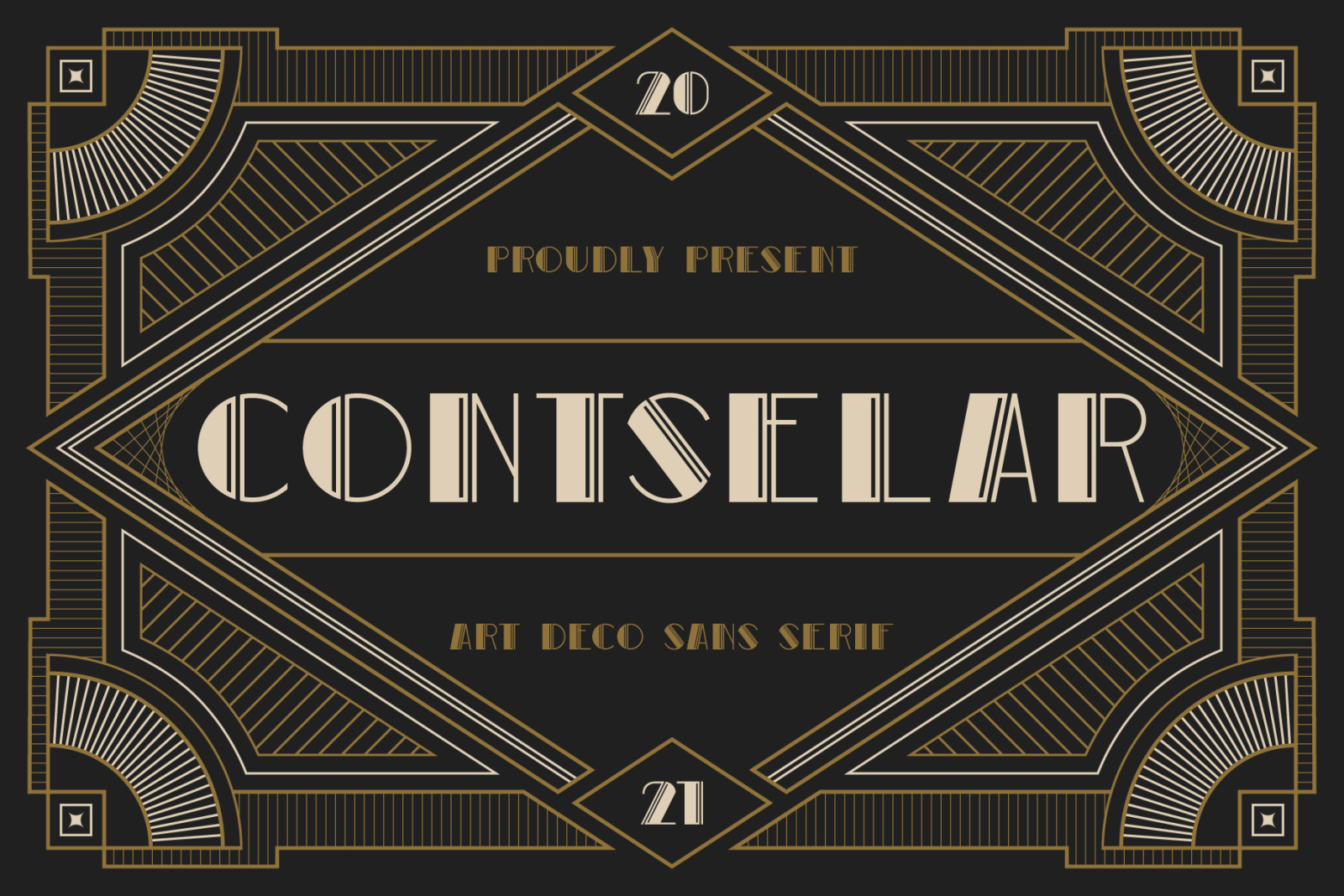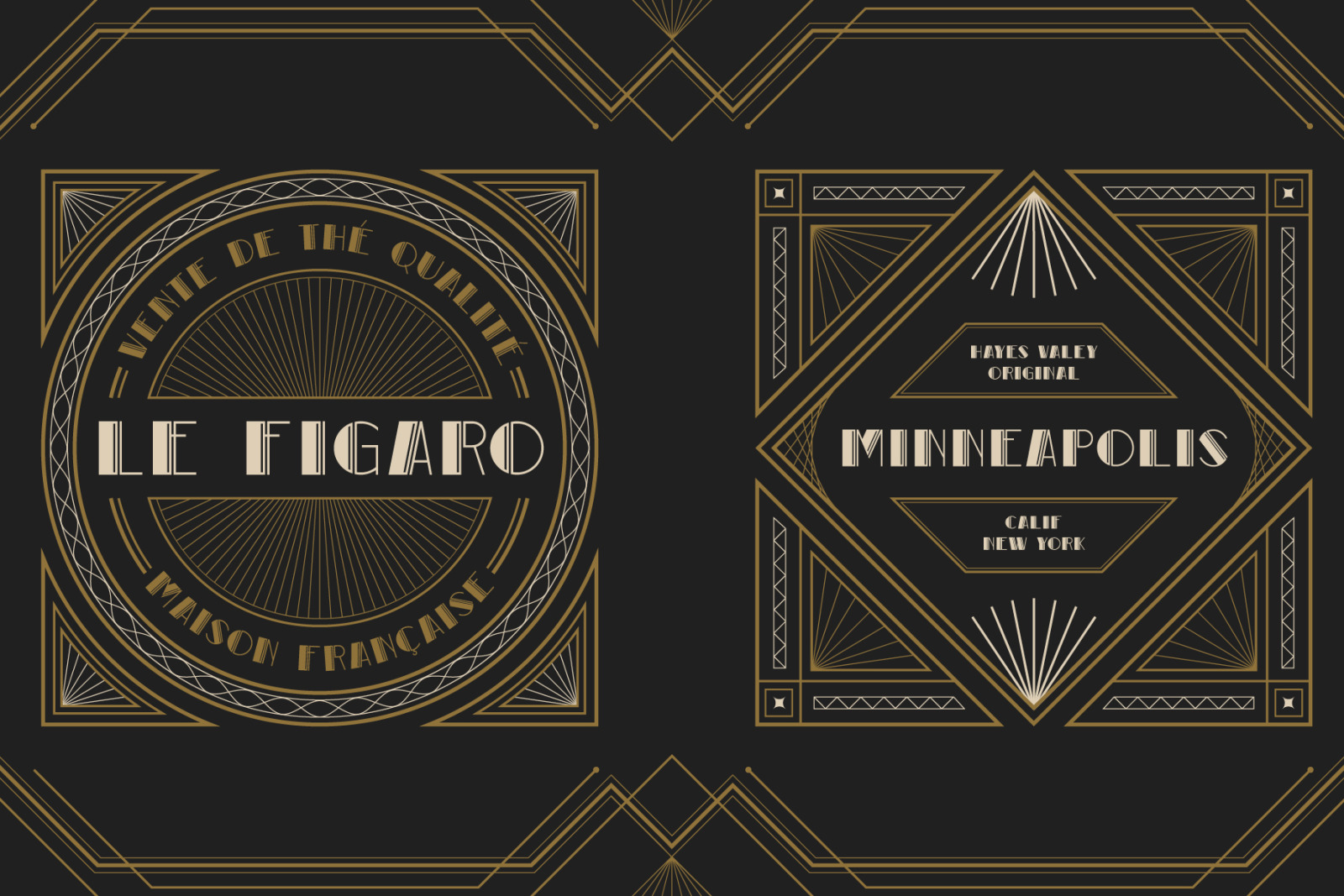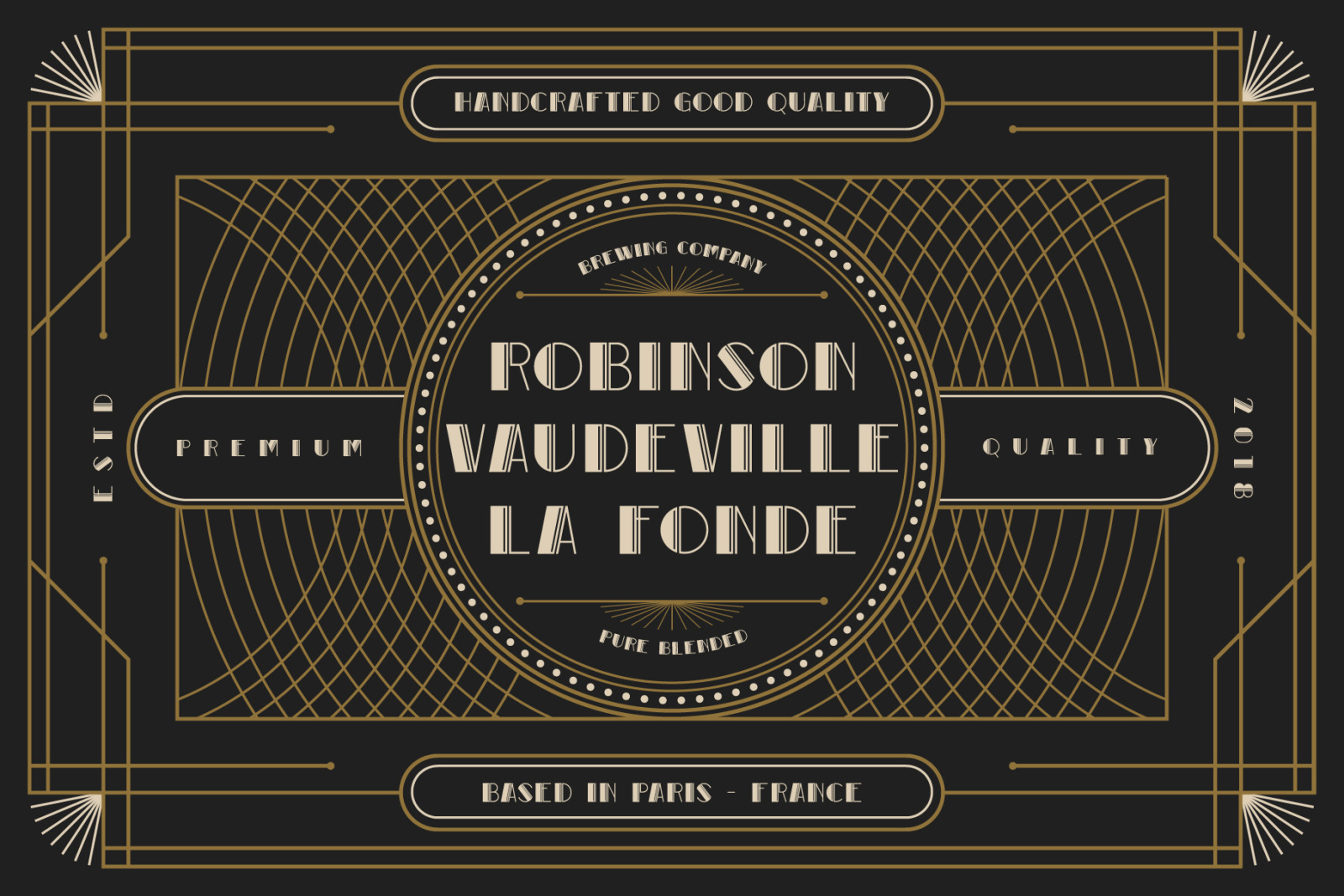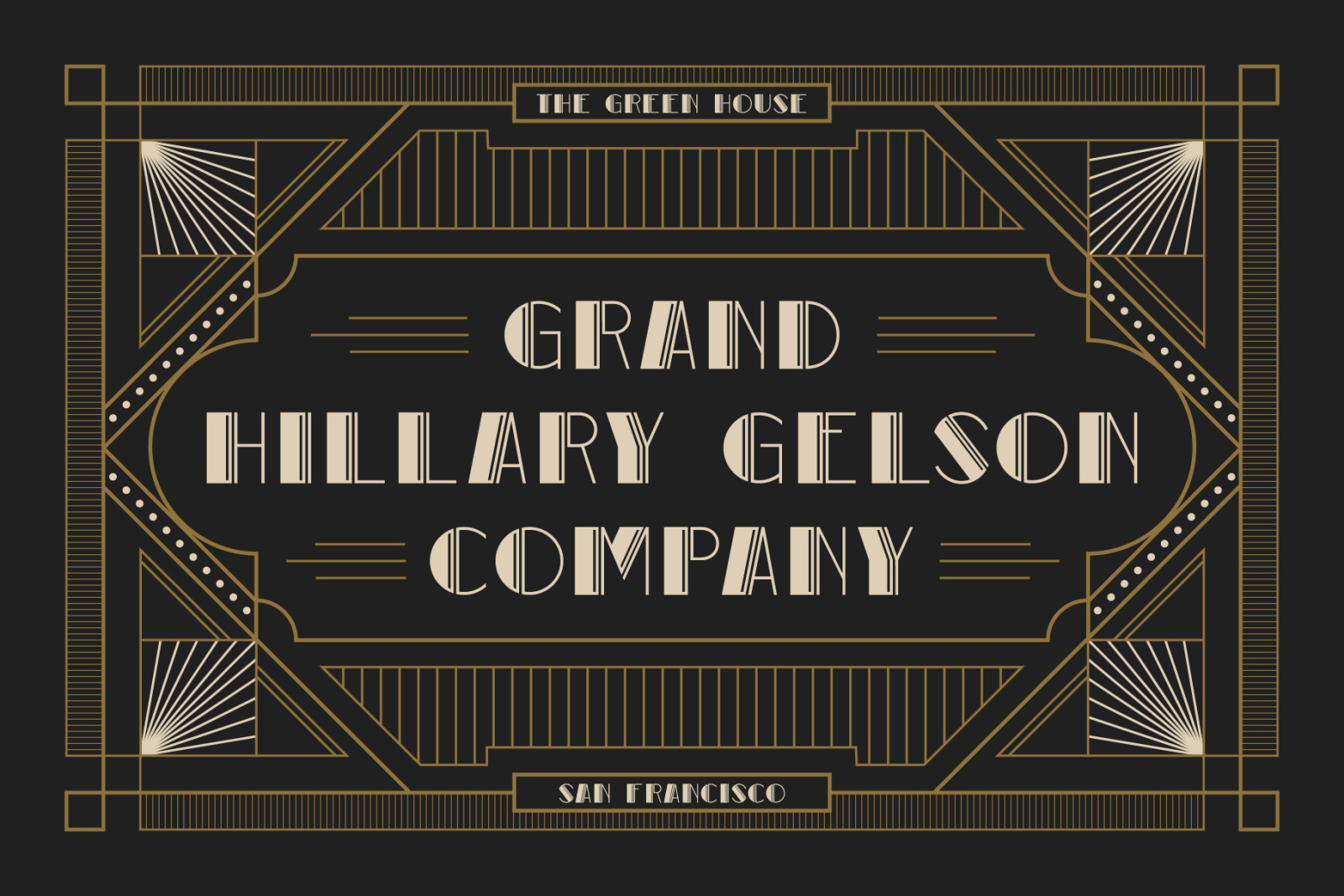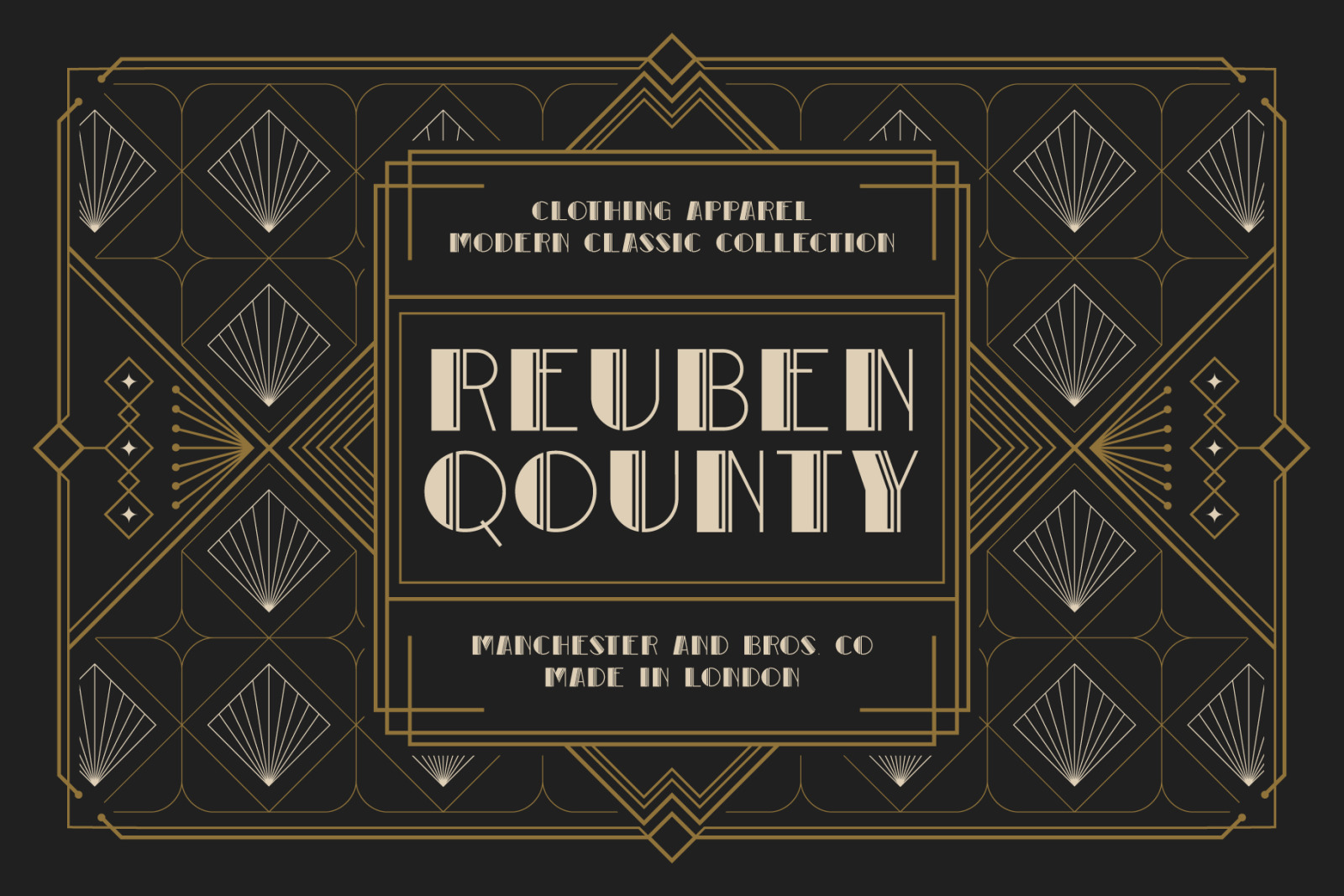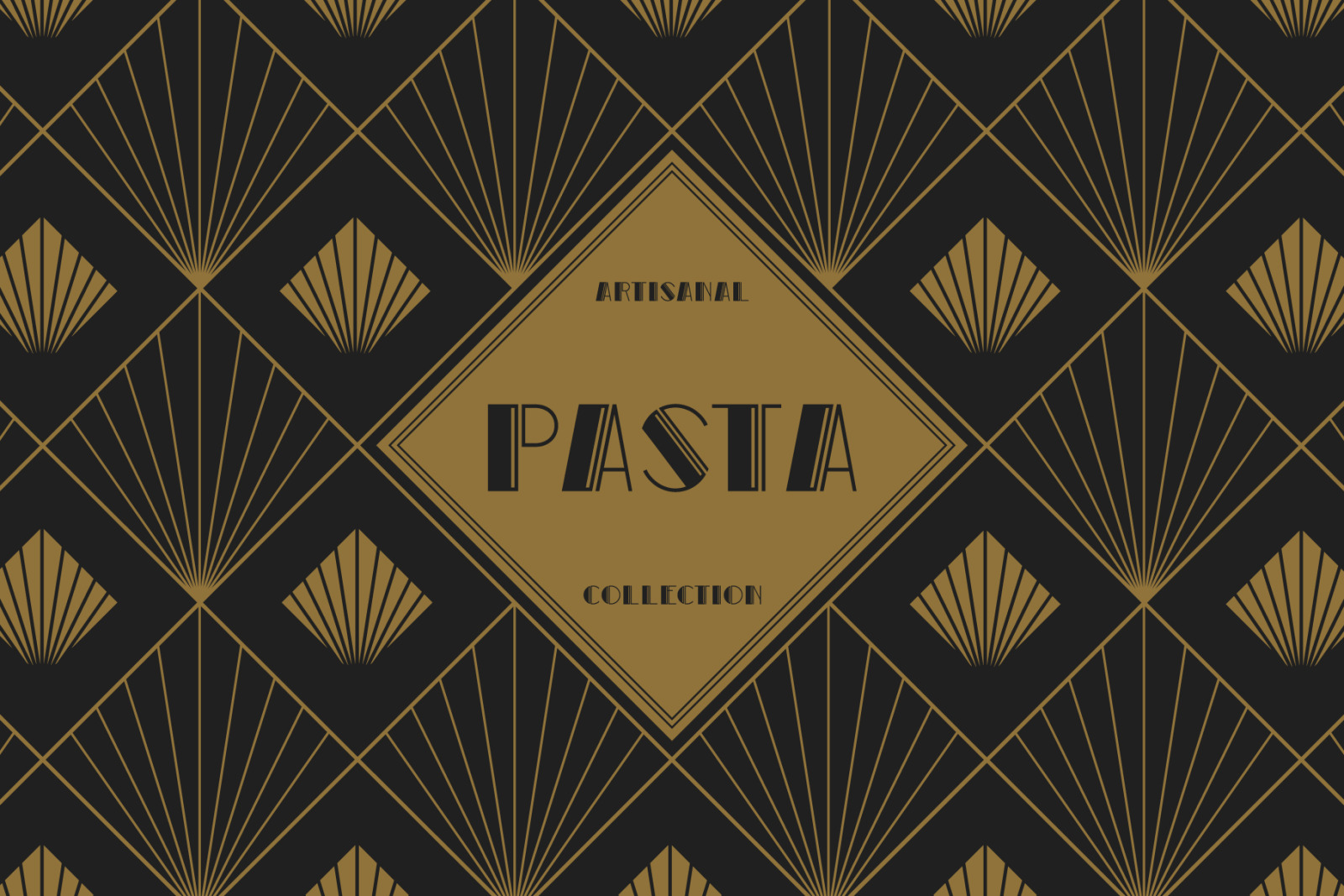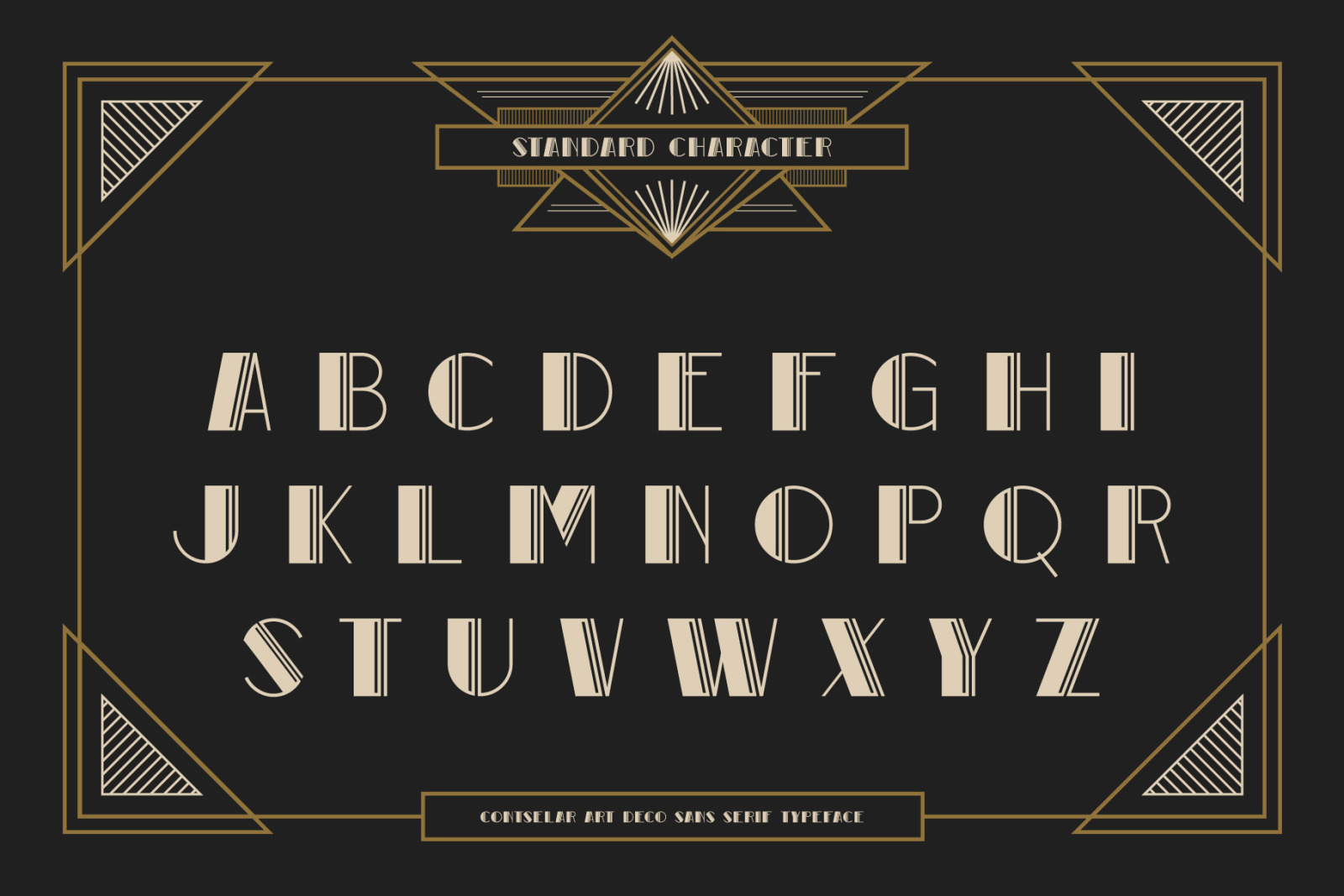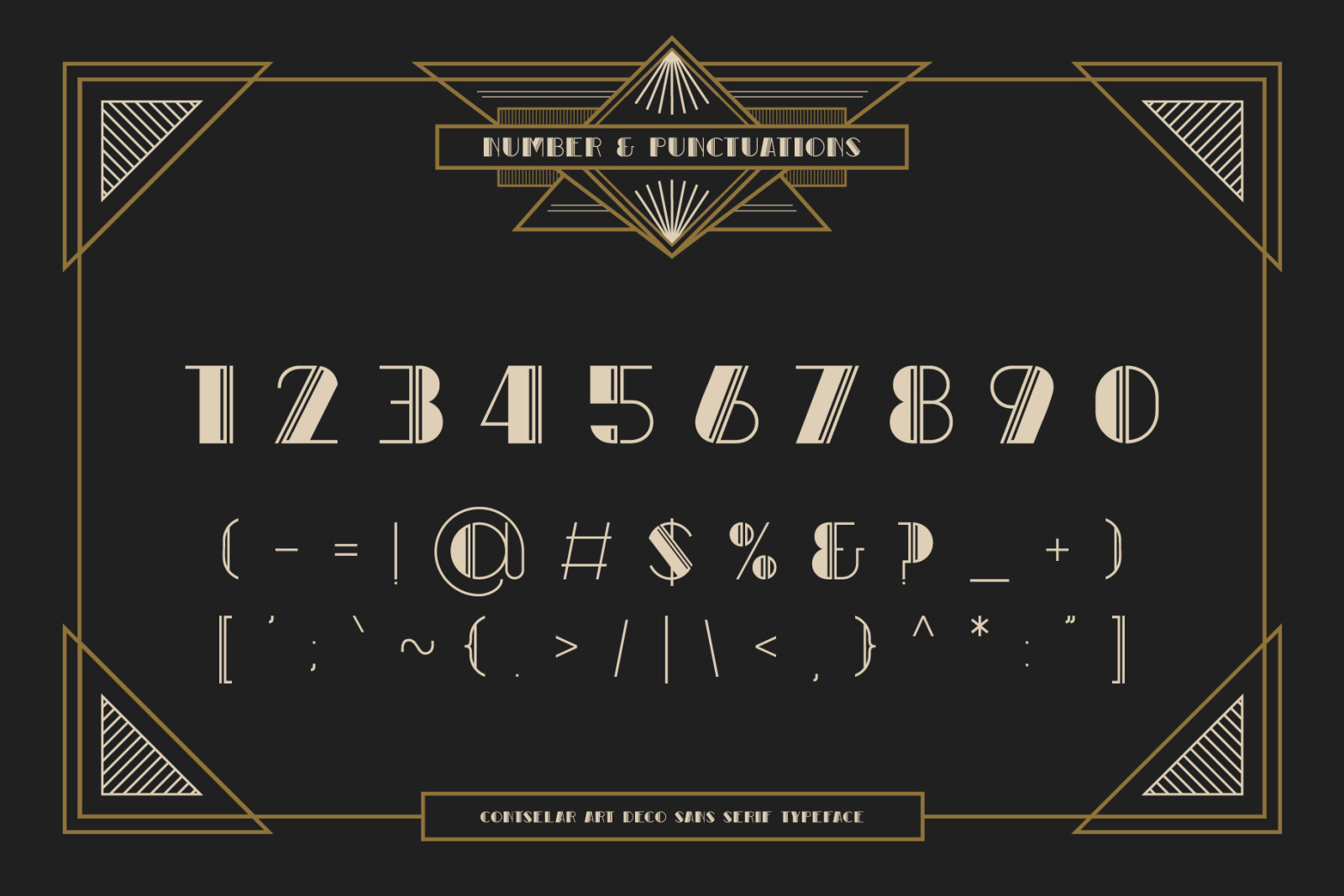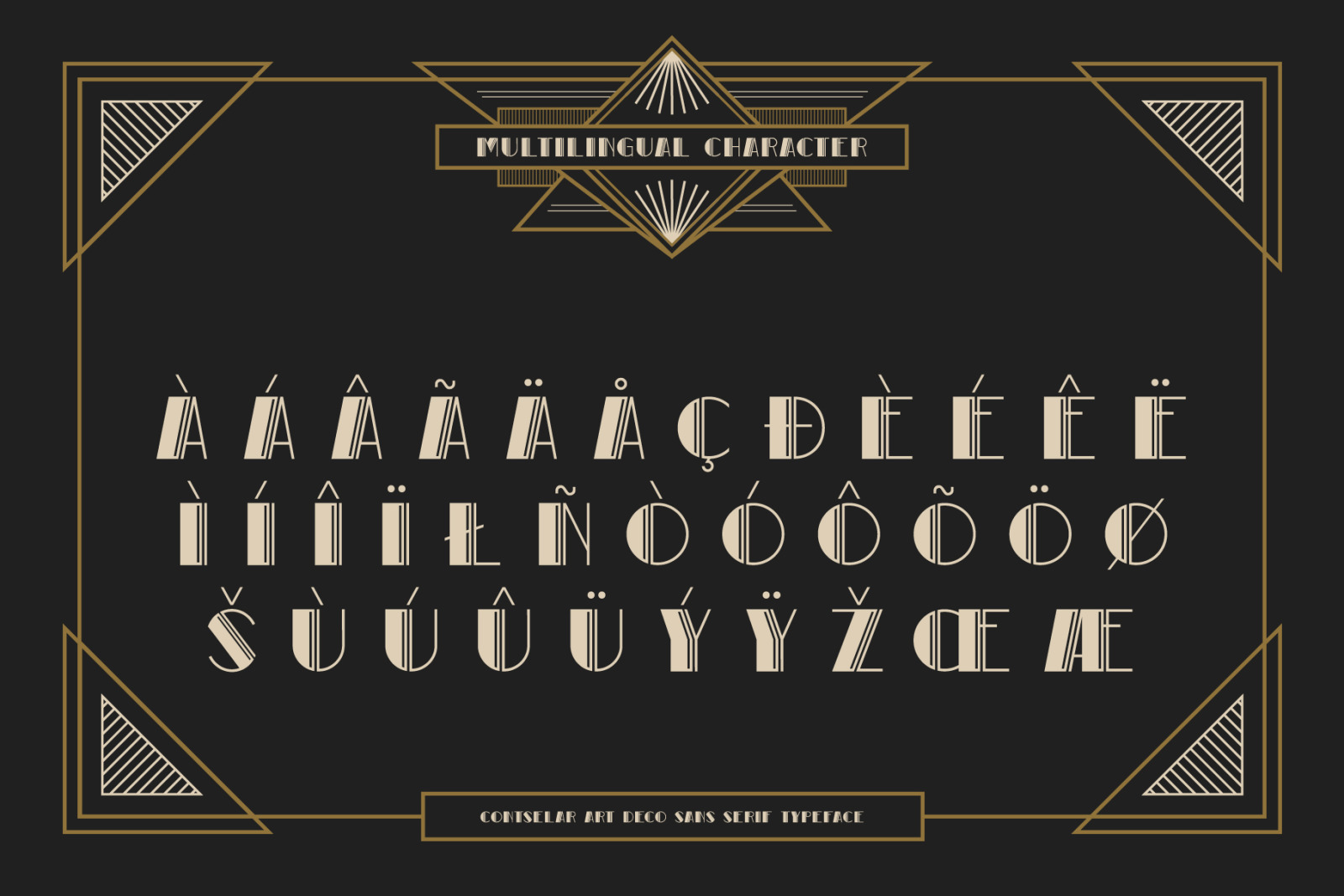
Contselar Font
CONTSELAR is a unique font based on a modified sans serif font or commonly known as the art deco font style. A font with a distinctive and unique style to support an art deco design that looks elegant and classic.